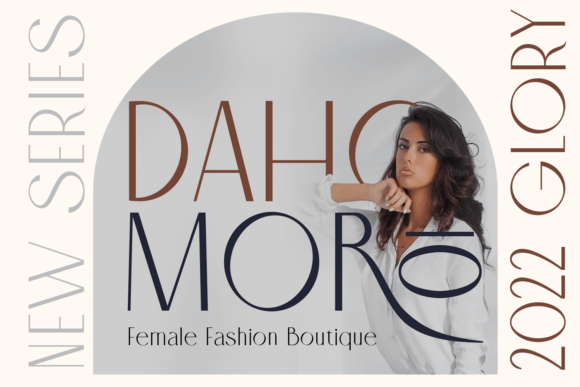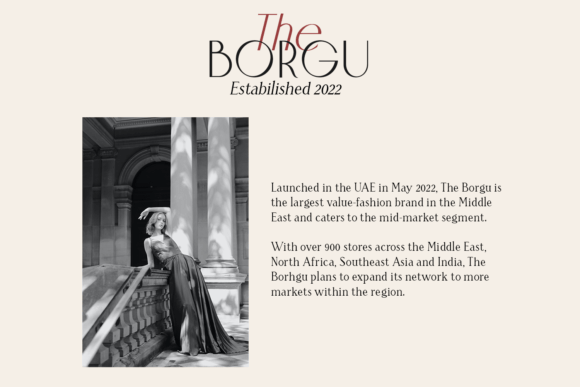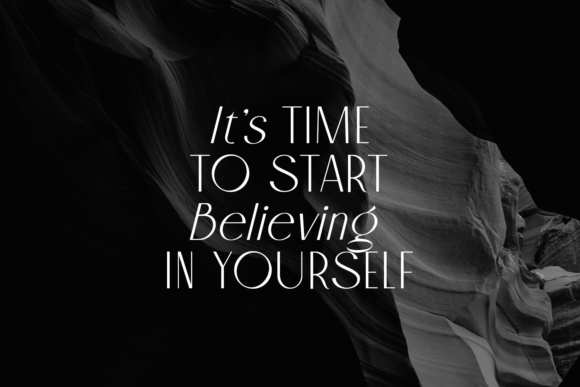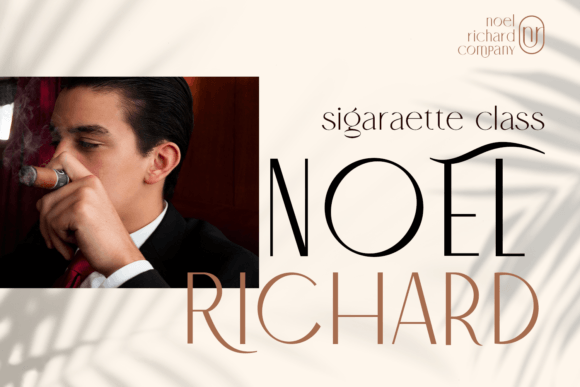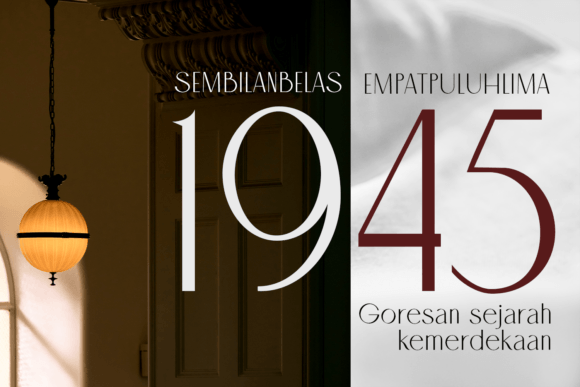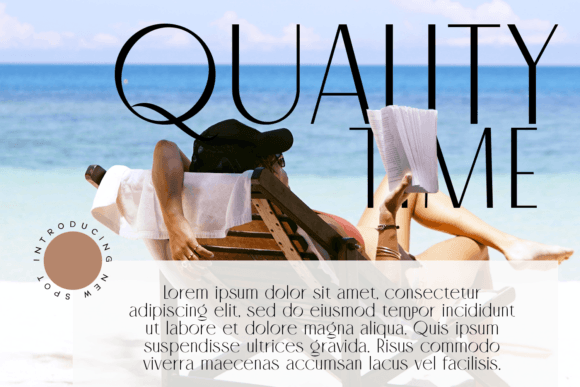
The Perfect Cup: Elevating Your Designs with Cafgone Font
As a designer, there’s nothing quite like the thrill of sipping a perfectly brewed cup of coffee and watching your latest project come to life. But, let’s face it – the right font can make all the difference between a great design and an exceptional one. That’s where the Cafgone Font comes in – a modern and elegant sans serif font that’s been specially crafted to elevate high-end branding, logo designs, and product packaging to new heights.
Whether you’re working on a luxurious invitation design or a premium product launch, the Cafgone Font’s clean lines and subtle contrast will give your project a touch of luxury and class that’s sure to impress. And, as a designer, you know how valuable a versatile font like this can be – the perfect addition to your toolkit to help you create stunning designs that stand out from the crowd.
Cafgone Font Key Features
- Font Family: Cafgone is a sans-serif font family designed for optimal readability in digital environments.
- Font Sizes: Cafgone is available in 4 font weights: Light, Regular, Medium, and Bold, making it suitable for a wide range of applications.
- Character Set: Supports a comprehensive character set, including Latin, Cyrillic, and Greek alphabets, as well as various punctuation and special characters.
- Unique Characteristics: Cafgone features a clean and modern design, with subtle rounded edges and a balanced x-height, making it an ideal choice for corporate identities and digital products.
Cafgone Font Review
I recently had the chance to work with the Cafgone Font, and I must say, it’s been a mixed bag. Let’s start with what works well.
- ✨ Elegant and refined aesthetic: The Cafgone Font has a sophisticated, high-end feel that would be perfect for luxury brands or upscale designs.
- ✨ Unique character set: The font includes a range of special characters and symbols that add a touch of whimsy and personality to your design.
However, there are also some limitations to consider.
- ⚠️ Limited font sizes: The Cafgone Font doesn’t perform well at very small font sizes, which can make it difficult to read in certain contexts.
- ⚠️ Some letterforms can be difficult to distinguish: The font’s unique aesthetic can sometimes make it hard to tell certain letters apart, especially in text-heavy designs.
Overall, I think the Cafgone Font is a solid choice for designers who need a high-end, elegant font for their projects. However, it may not be the best option for designers who need a font that can adapt to a wide range of font sizes or contexts.
The Cafgone Font is ideal for use in branding materials, such as logos and business cards, as well as in digital marketing materials, such as social media posts and email newsletters. It can also be used in print materials, such as brochures and flyers.